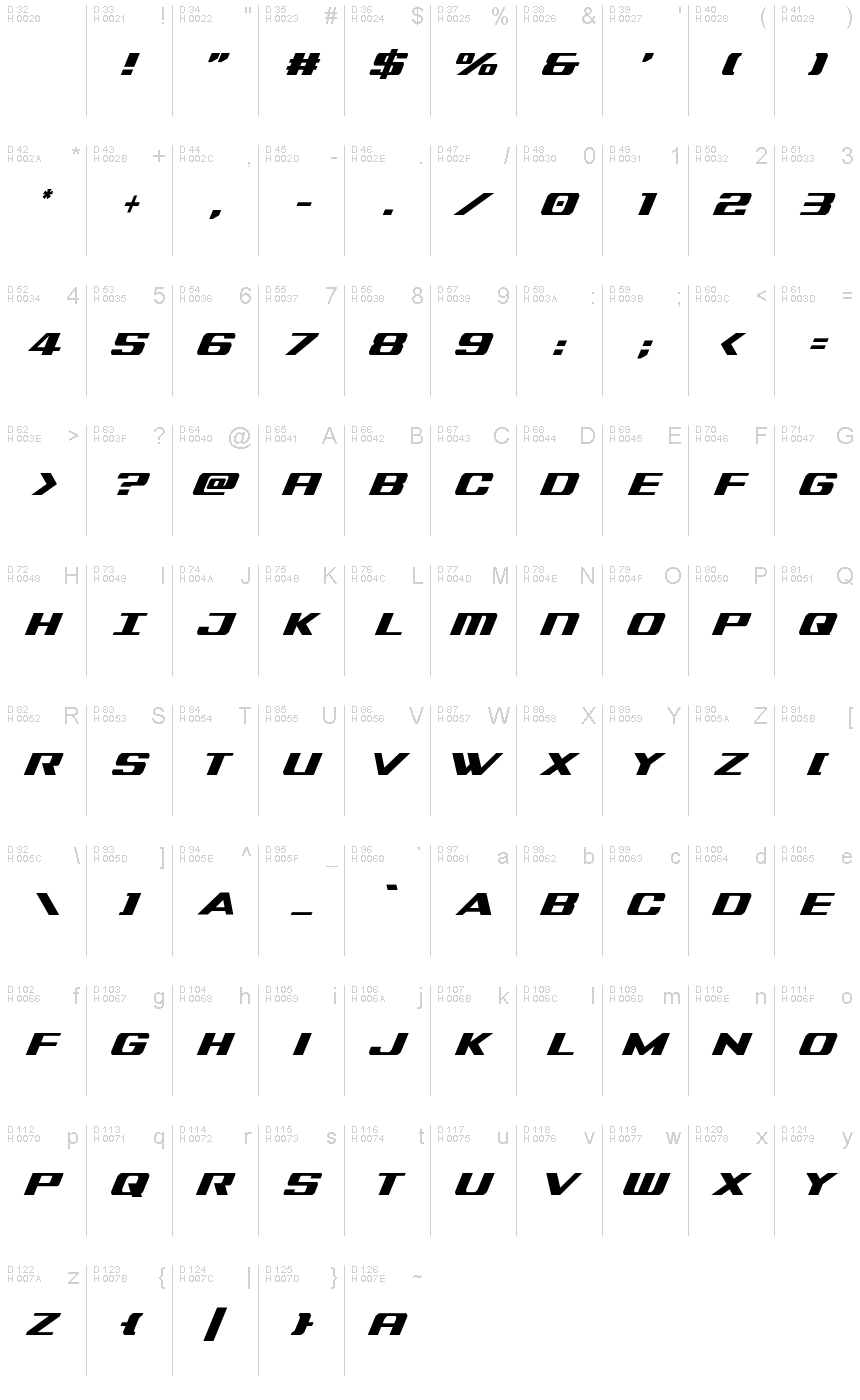
Tigershark Condensed Italic, created by Iconian Fonts in 2024, is a free futuristic display font with a forceful forward slant. Its broad, low capitals combine thick strokes with deep diagonal notches and narrow internal openings. Rounded outside corners soften the silhouette, but clipped joins keep the lettering mechanical and taut.
Angled speed graphics echo its cuts on motorsport posters and game interfaces. The repeated shark-fin wedges also suit athletic apparel and energy drink packaging, turning the lettering into part of a fast, aggressive product graphic rather than a detached line of type.